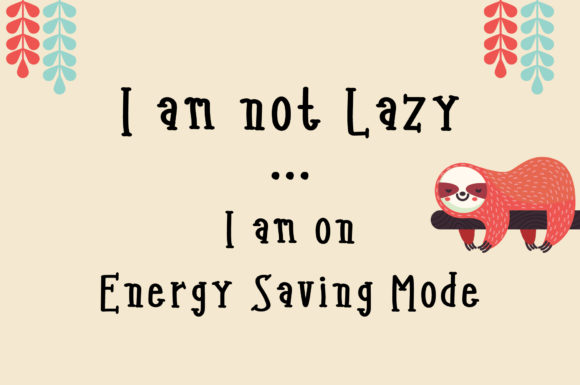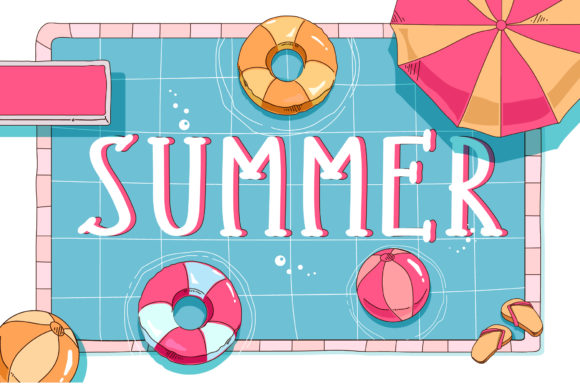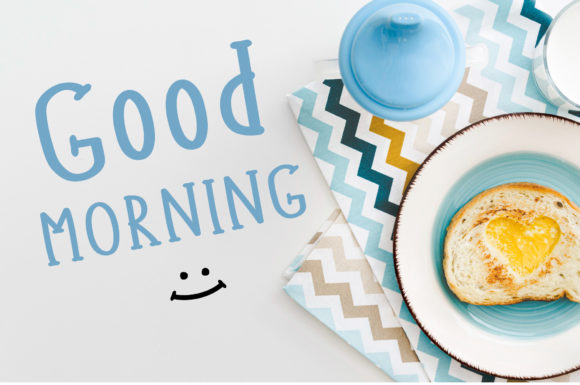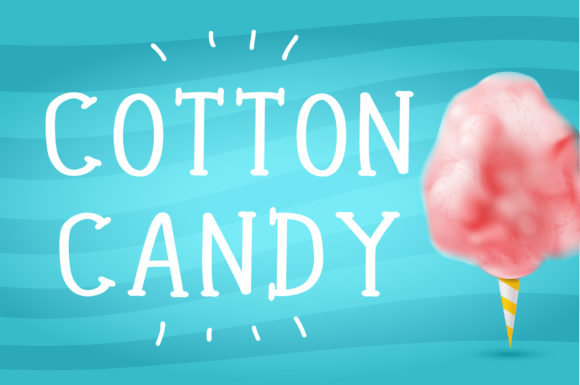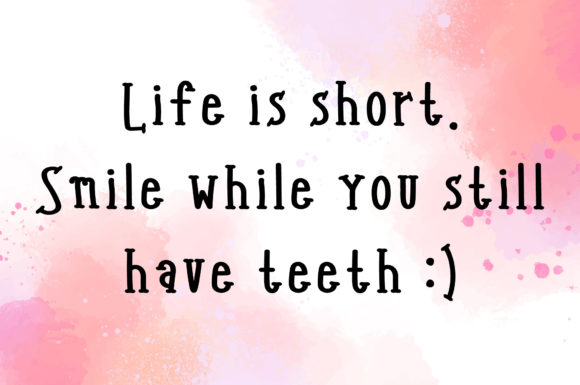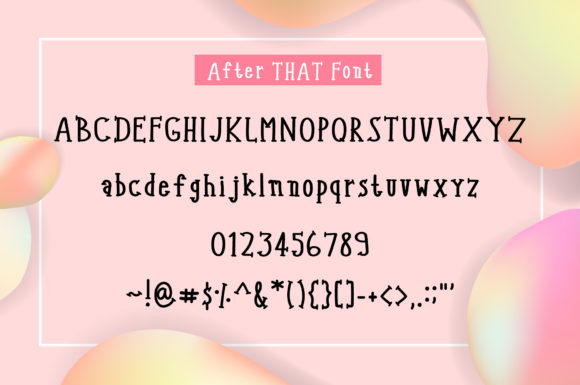
The Magical World of After That Font
I’ll never forget the time I was working on a wedding invitation project, and my client asked for a font that was “whimsical, yet elegant.” I scoured the internet, tried out dozens of fonts, but nothing seemed quite right. That was until I stumbled upon After That Font. 💕
This enchanting handwritten font has a way of making any creative idea stand out. Its charming and friendly vibe is perfect for a wide range of design projects, from logos and branding to headings, wedding designs, invitations, signatures, labels, and more!
An Honest Review of After That Font
- ✅ Unique and quirky character set that’s perfect for adding personality to your designs
- ✅ Beautifully crafted letterforms with a high level of legibility
- ✅ Extensive range of OpenType features, including glyphs and stylistic alternates
- ⚠️ Some users may find the font a bit too ornate for very small text sizes
- ⚠️ Limited availability of bold or heavy weights, which may limit its use in certain design applications
The Backstory Behind After That Font
After That Font was designed by a talented type designer who’s passionate about creating beautiful and unique fonts. The font was inspired by the designer’s love of handwritten scripts and their desire to create a font that’s both elegant and playful.
| Font Name | After That Font |
| Author | Pila Studio |
Q: What is After That Font?
A: After That Font is a beautiful and unique handwritten font that’s perfect for adding personality to your designs.
Q: Is After That Font easy to read?
A: Yes, After That Font is designed to be highly legible, making it perfect for use in a variety of design applications.